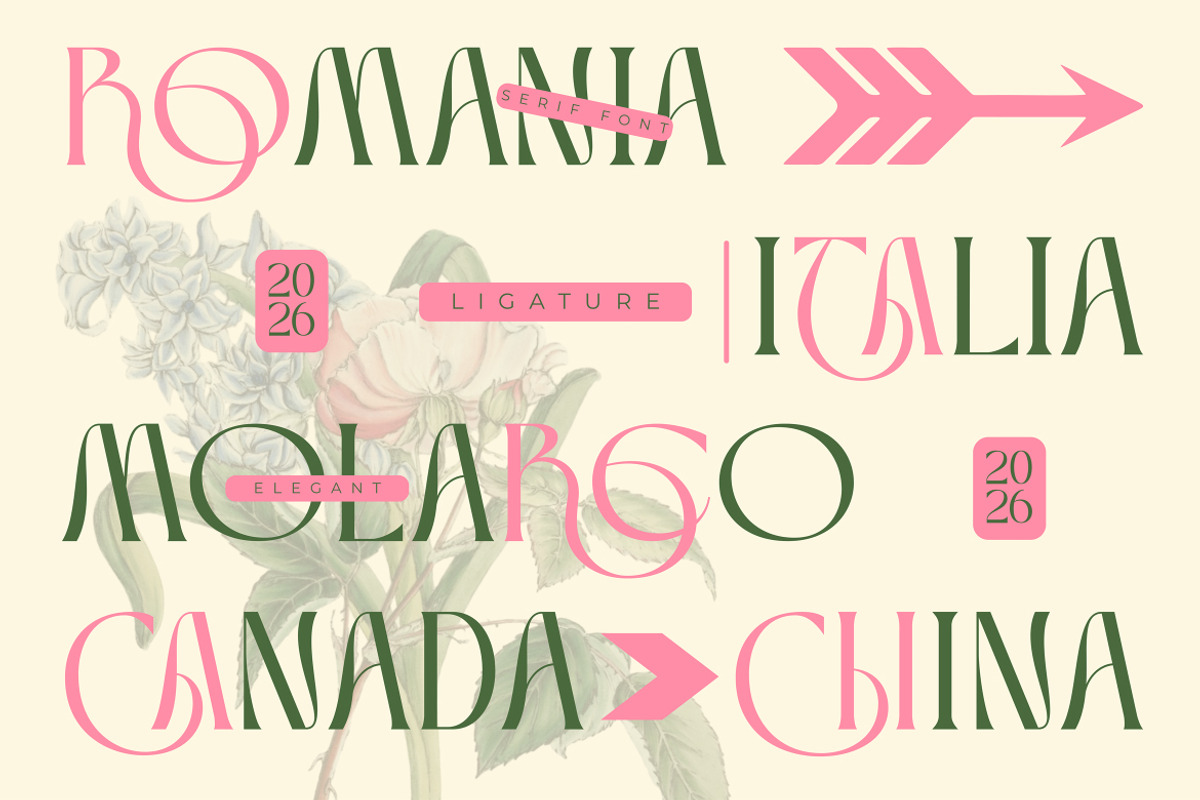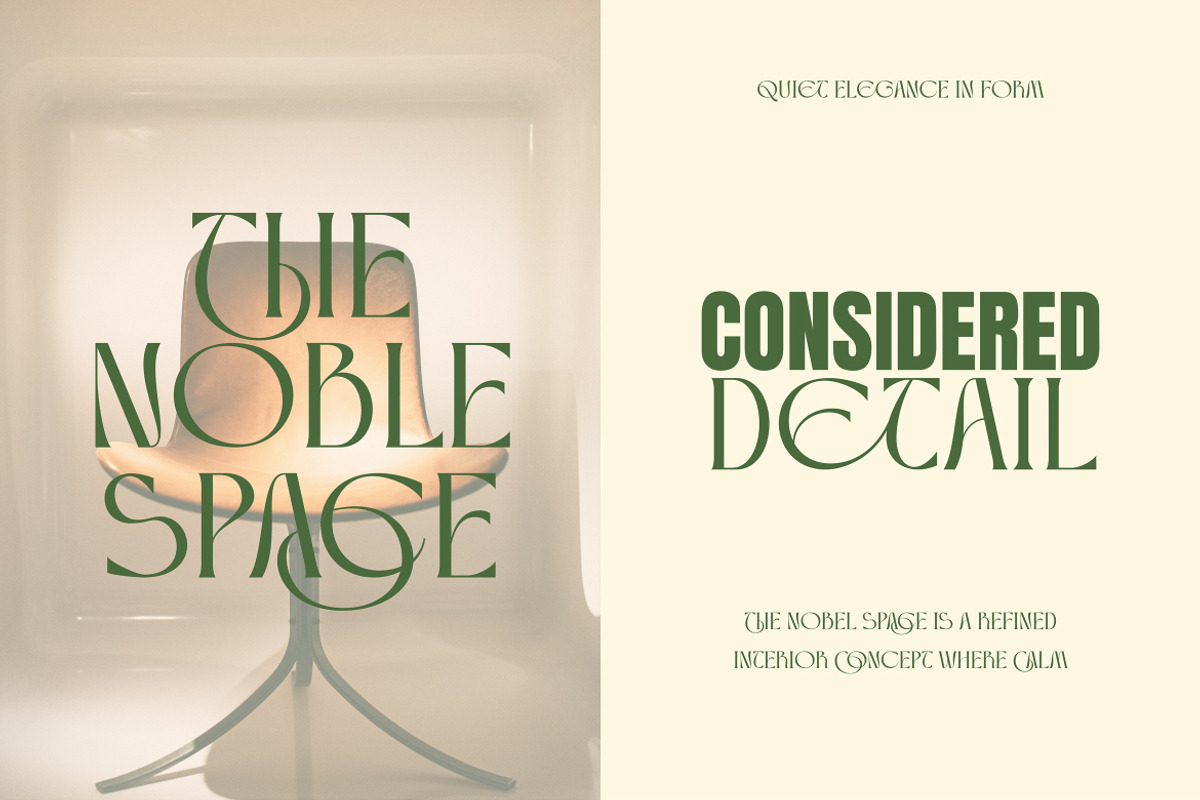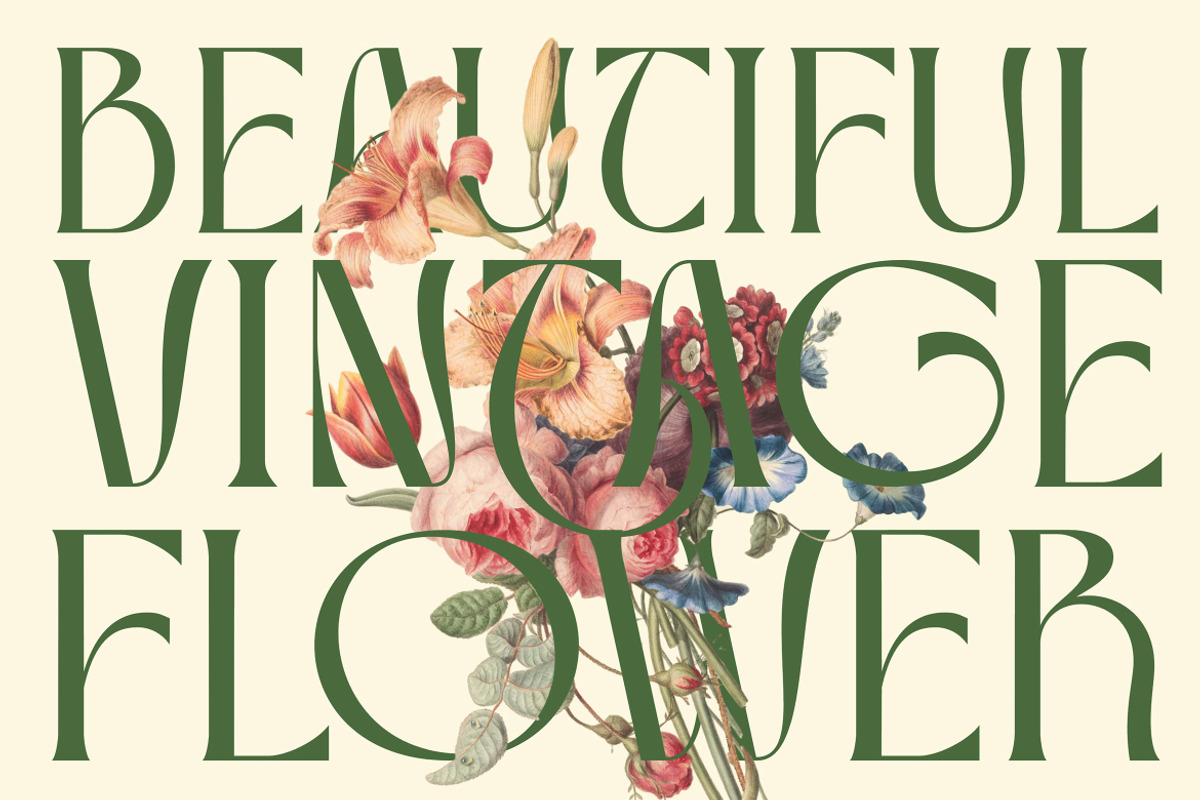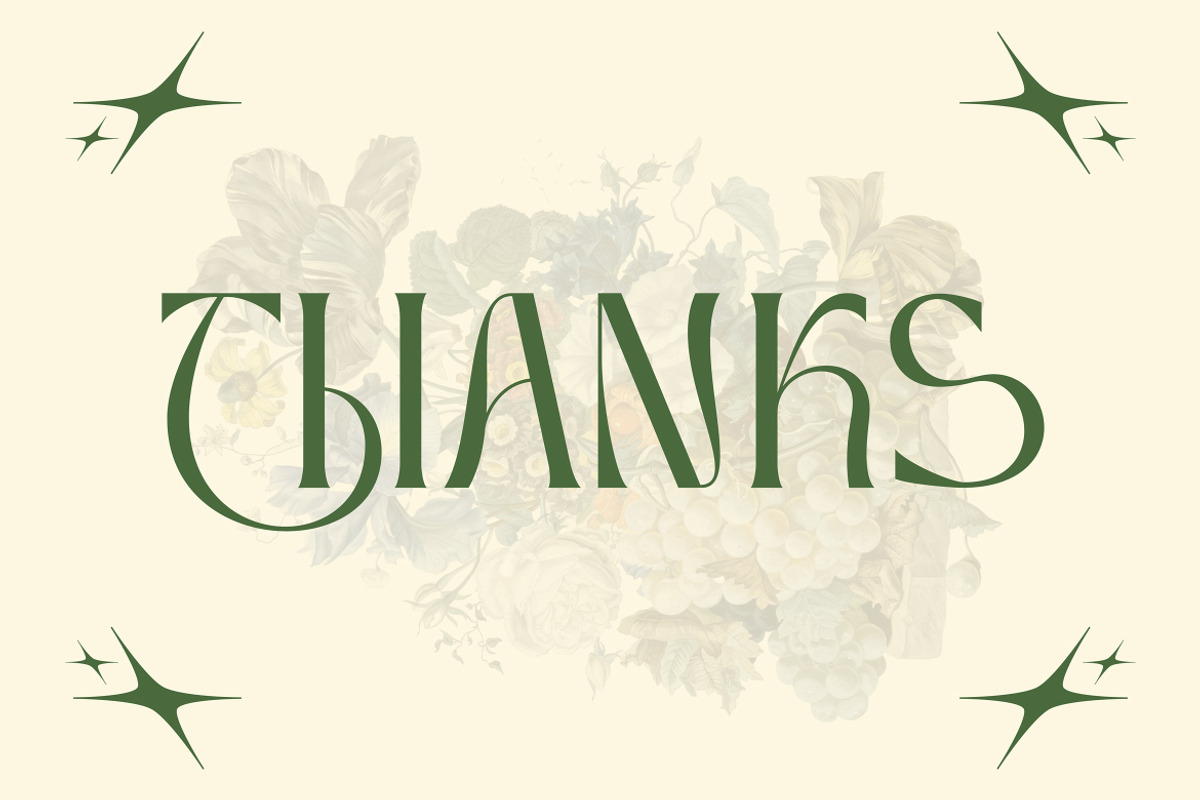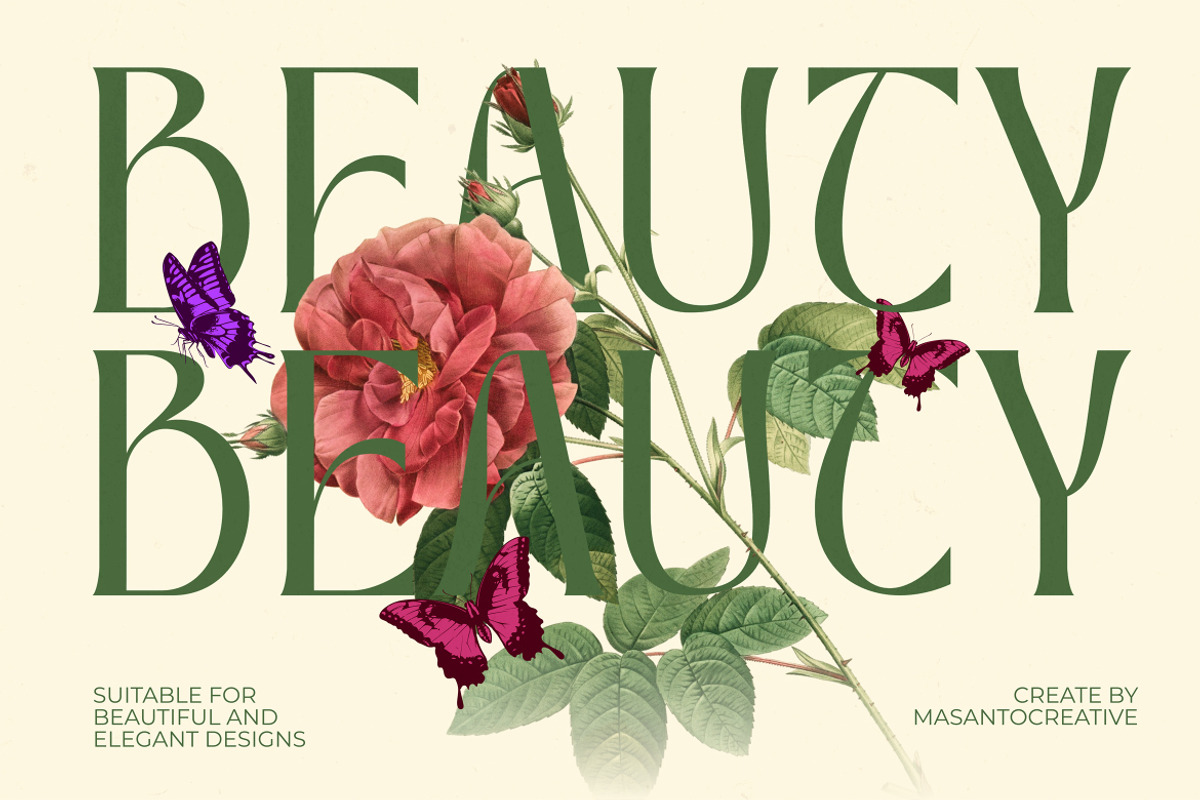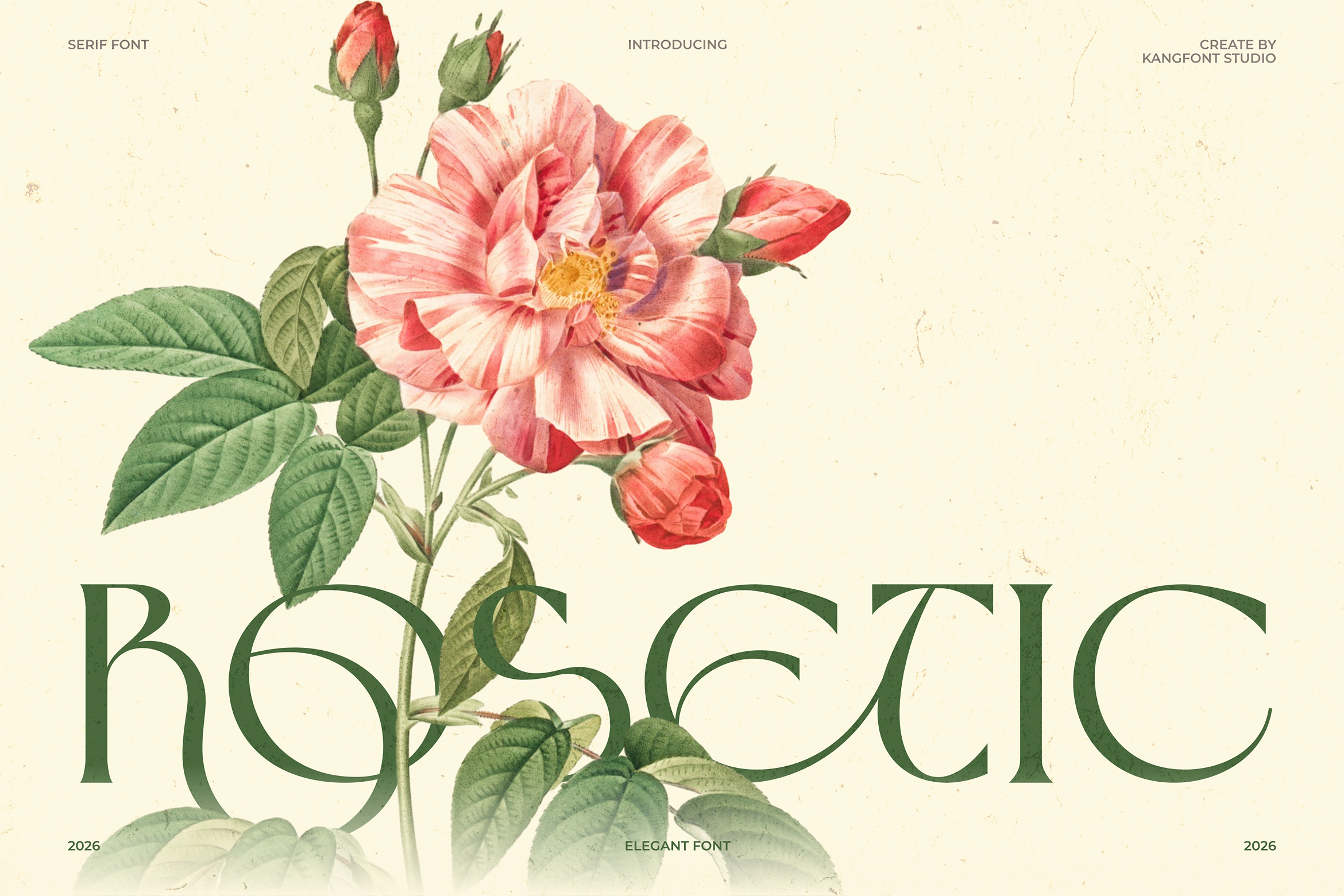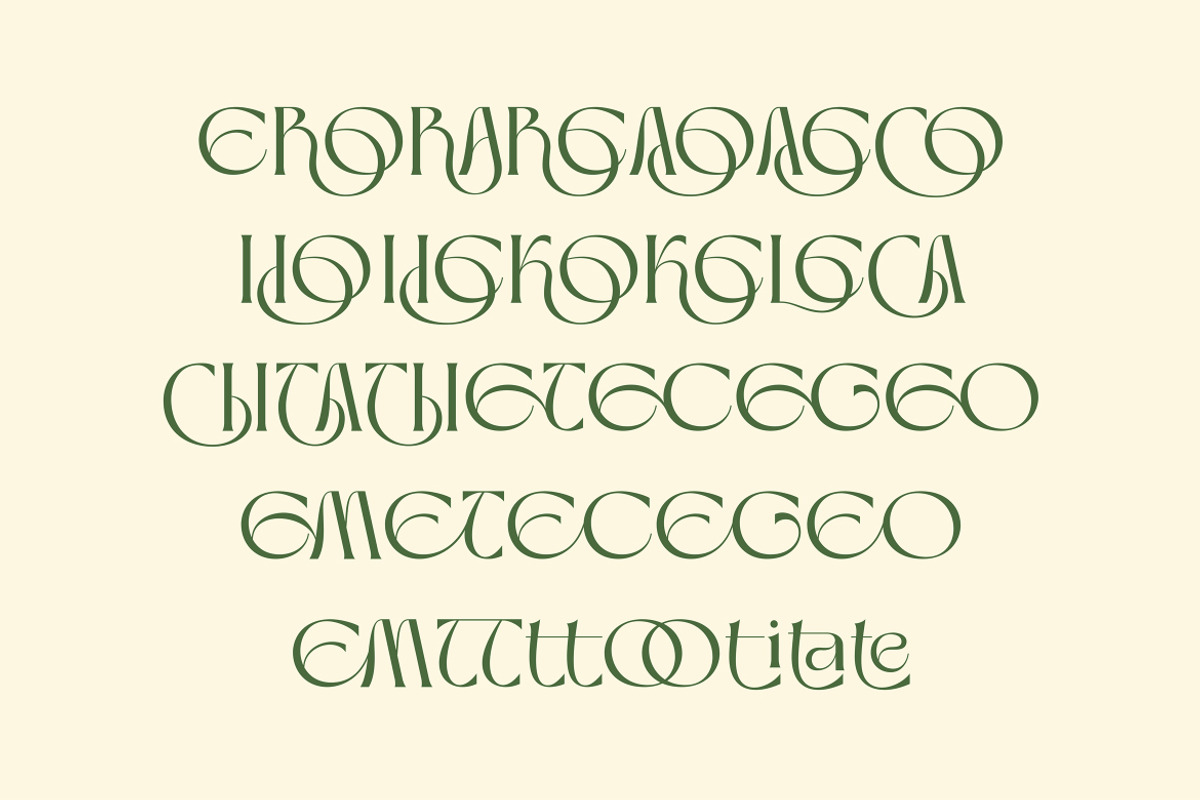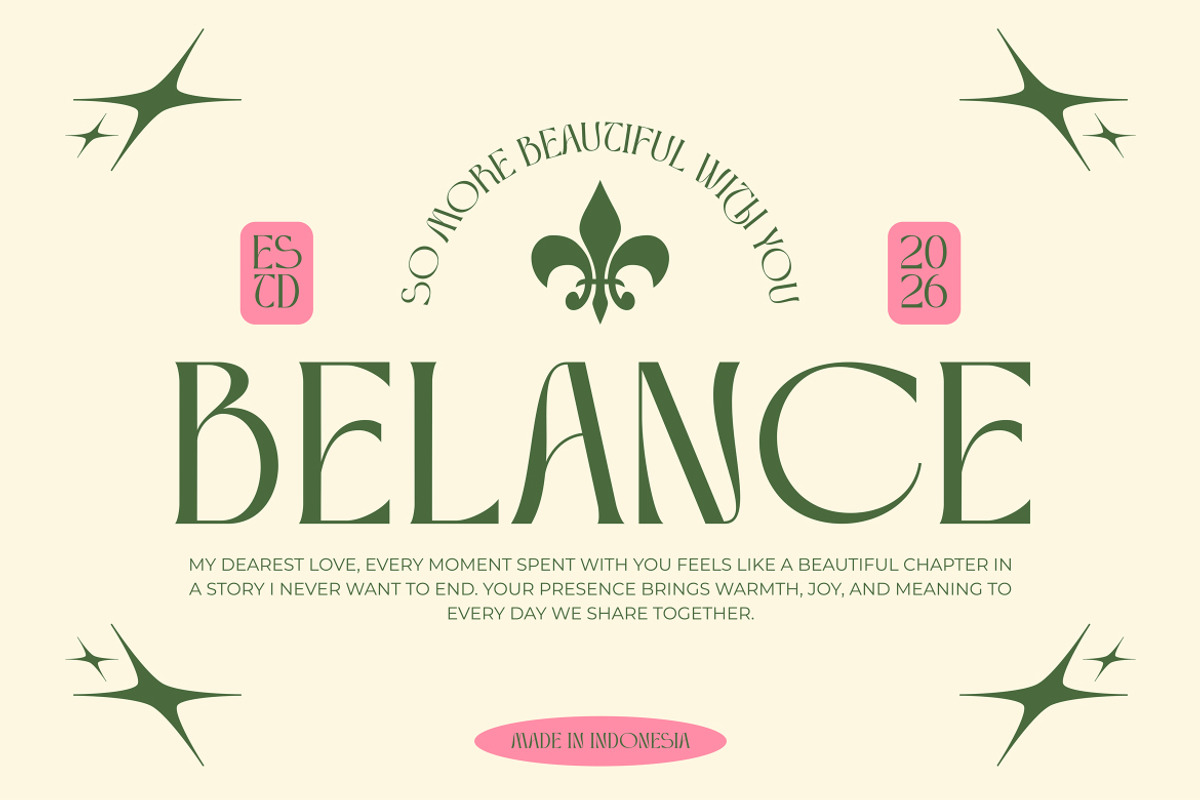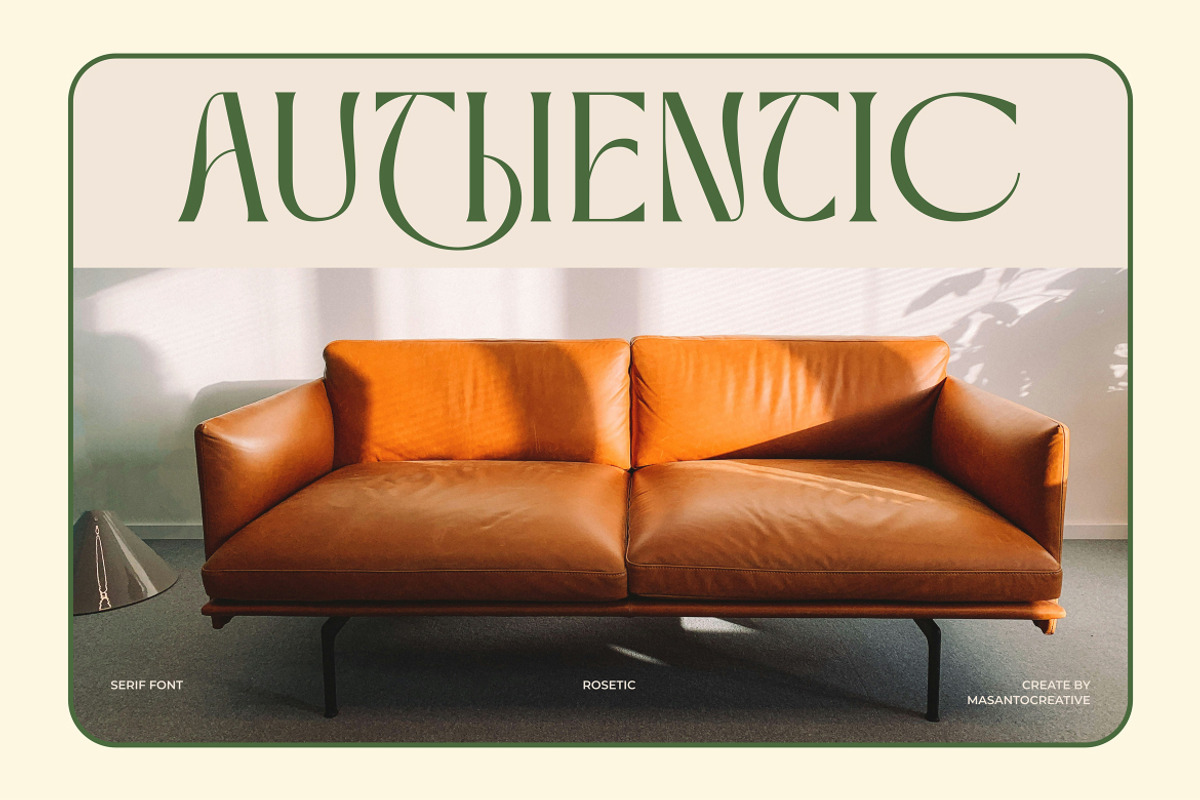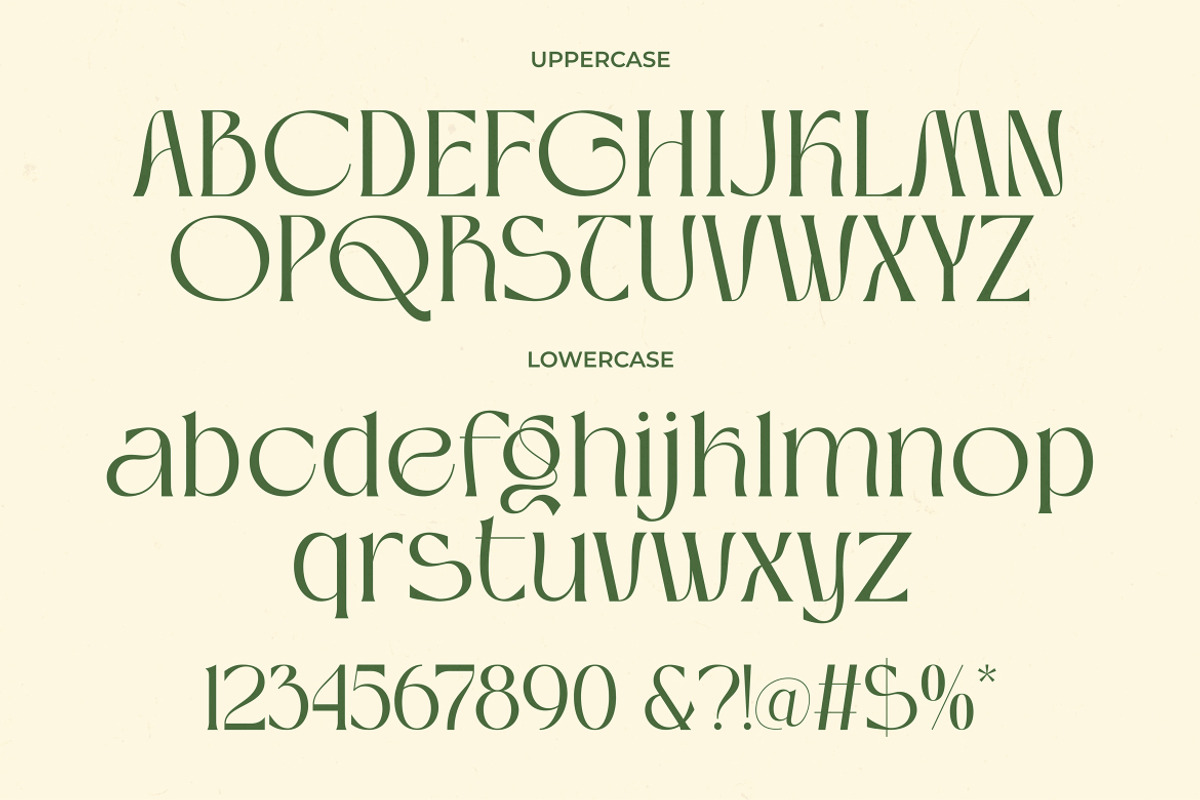
Rosetic - Luxury Wedding Font
Rosetic – Elegant Serif Font
Rosetic is an elegant serif font with a luxury touch, crafted for premium branding and modern editorial design. This serif font blends classic structure with distinctive ligatures and refined letterforms, making it the perfect choice for projects that need an elegant, luxury, and timeless aesthetic.
Use Rosetic as a luxury font for high-end logo branding, a wedding font for elegant invitations, an editorial font for magazine layouts, or a display font for fashion lookbooks and premium product packaging.
Full uppercase & lowercase characters (A–Z, a–z)
Numbers (0–9)
Punctuation & special characters (&, ?, !, @, #, $, %, *)
Stylistic ligatures & alternates
Luxury brand identity & logo design
Wedding & event stationery
Editorial & magazine layouts
Product packaging & labels
Social media graphics & posters
Interior & lifestyle branding
Font Highlights:
High-contrast thick & thin strokes
Elegant stylistic ligatures
Art Nouveau-inspired letterforms
Versatile for both display and headline use